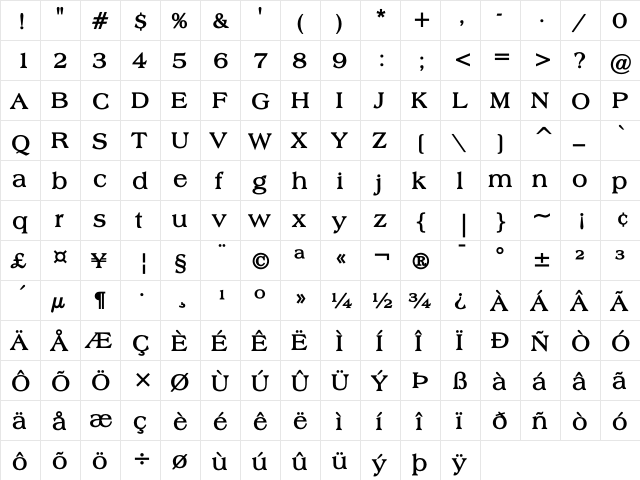
Broadsheet LDO Bold
| Foundry | Luke Owens |
| Designer | Luke Owens |
Design Context for Broadsheet LDO Typeface
Broadsheet LDO is a composed and adaptable typeface that performs quietly and consistently across a wide range of design contexts. Its bold stroke weight gives it real presence on the page.